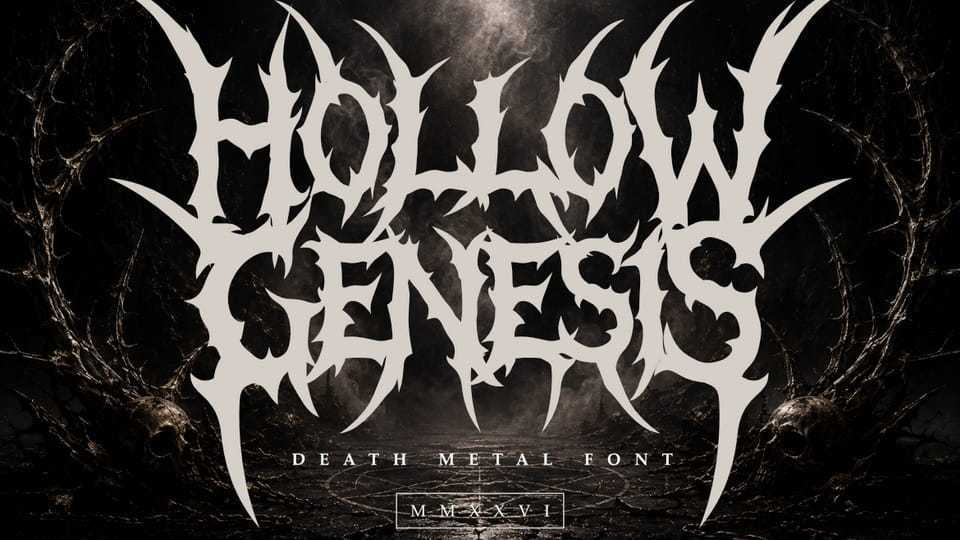
Download Hollow Genesis font, a death metal typeface crafted for precision and impact. Blending the raw energy of underground music with clean, professional lines, Hollow Genesis provides a premium edge to your visual identity.